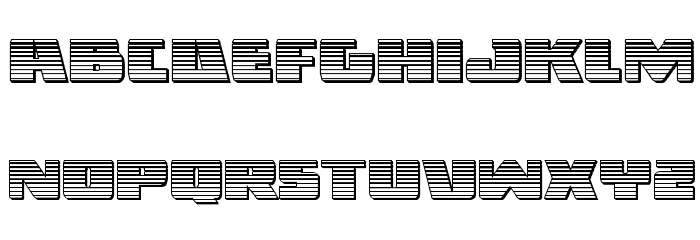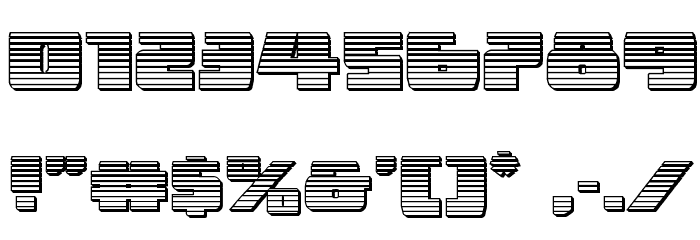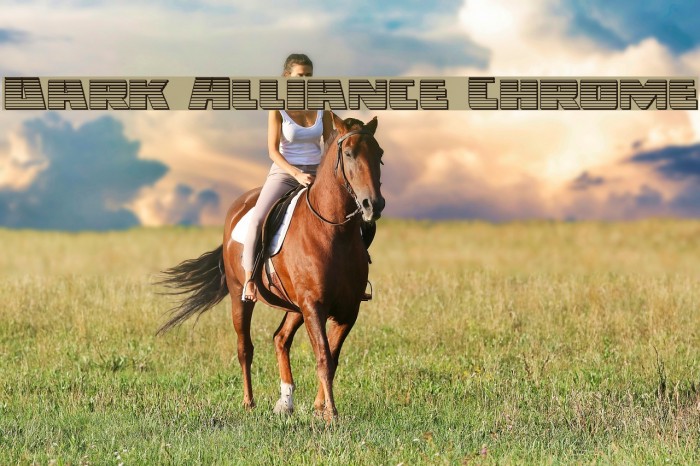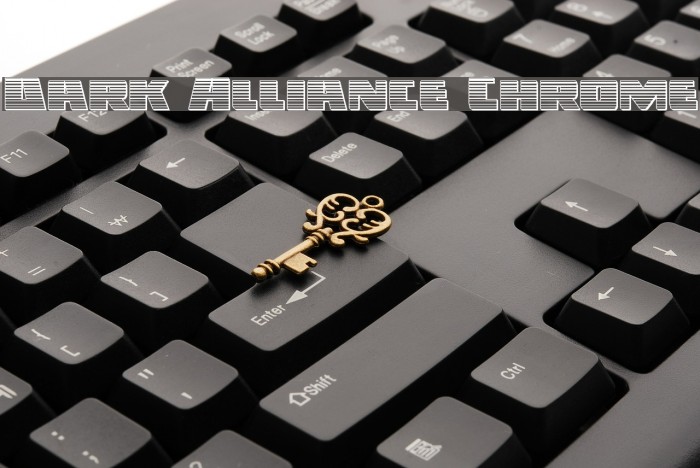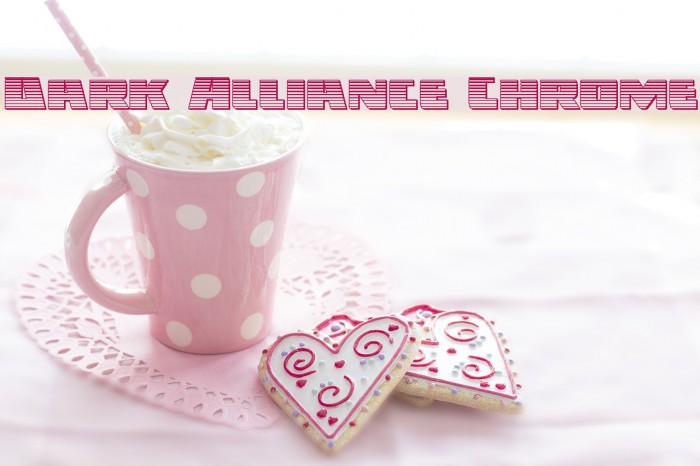
Dark Alliance Chrome Font
This font features a bold, futuristic design with a distinct chrome-like appearance. Each character is constructed with multiple horizontal lines, creating a layered, three-dimensional effect. The geometric shapes and sharp angles give it a modern, tech-inspired look. The uppercase and lowercase letters maintain a consistent style, while the numbers and special characters complement the overall aesthetic. This font is ideal for projects that require a strong, impactful visual presence.
A bold, futuristic font with a chrome-like, layered design.
- Proposed Projects: Ideal for sci-fi movie posters, tech company logos, video game titles, and futuristic-themed event flyers.
- Overall Style: Futuristic